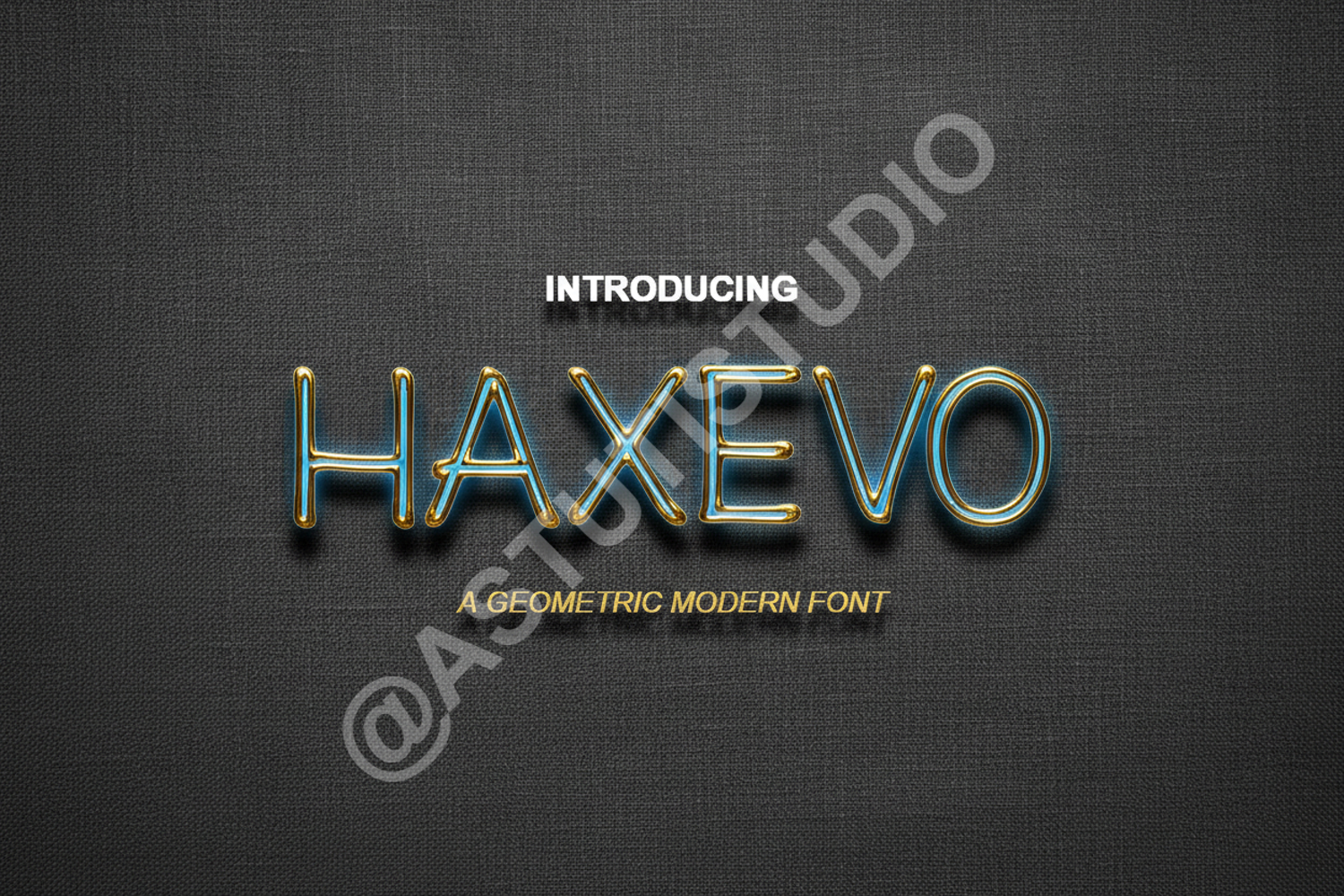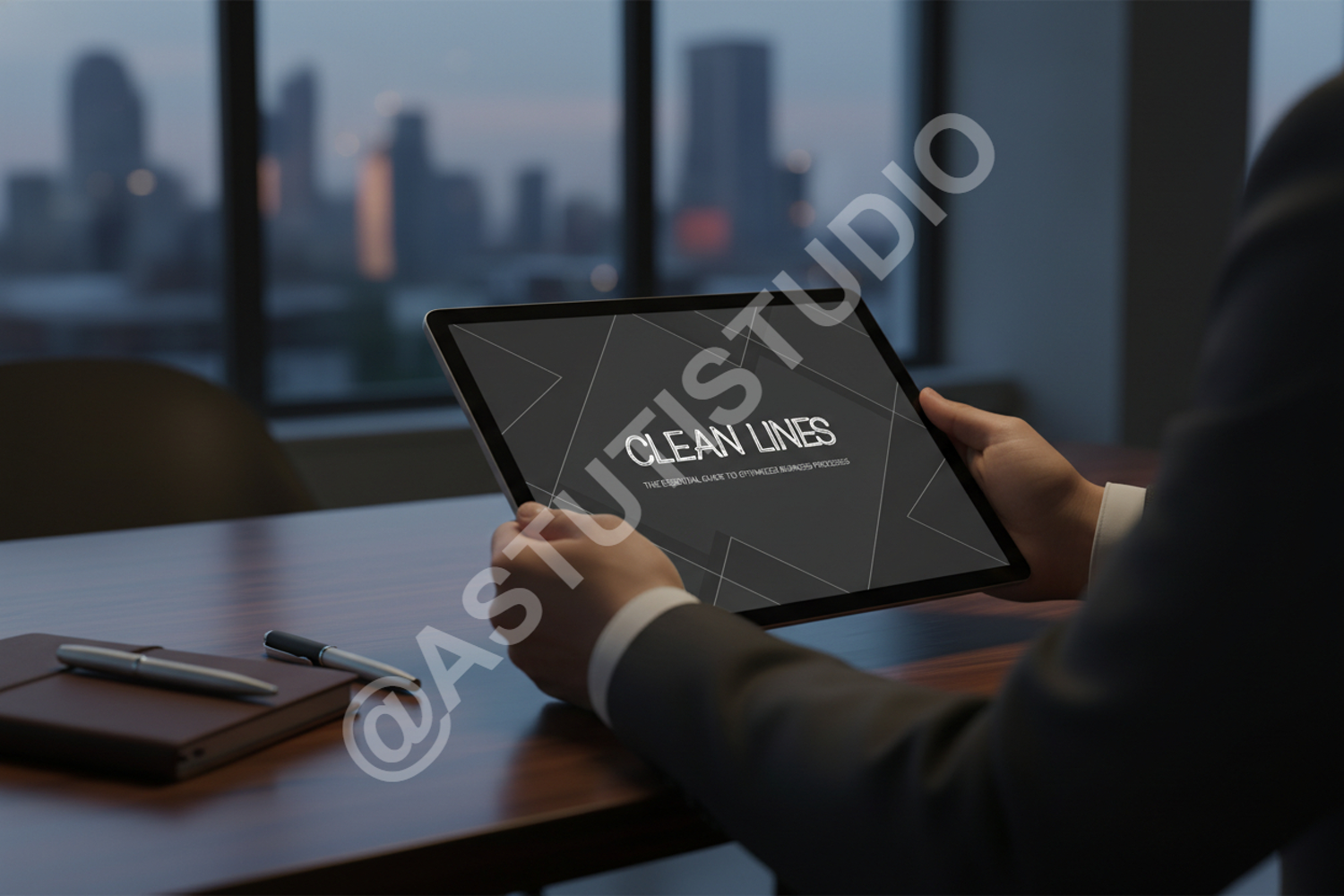
Haxevo - Modern Geometric Display Font
Haxevo
Elevate your creative projects with Haxevo, a premium display font engineered for high-impact visual communication. Haxevo combines sharp geometric precision with a sophisticated modern aesthetic, making it the perfect choice for designers who demand both style and versatility. Whether you are building a brand from scratch or looking for the perfect header for a high-end publication, Haxevo delivers a professional and cutting-edge look every time.
- Branding and Corporate Identity: Create memorable logos and distinctive brand marks.
- Tech and Startup Projects: Perfect for innovative and forward-thinking companies.
- Editorial and Publishing: Ideal for magazine headers, bold titles, and clean layouts.
- Social Media and Marketing: Stand out on digital platforms and advertising campaigns.
- Packaging Design: Add a touch of modern elegance to product labels and luxury boxes.